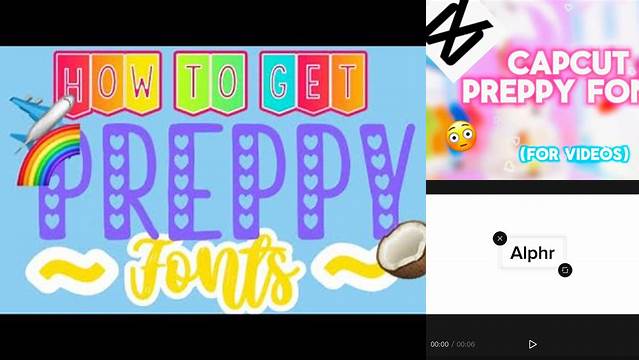
CapCut & Preppy Fonts: Your Ultimate Guide
Hey guys! Ever scrolled through TikTok or Instagram and been totally charmed by those super cute, effortlessly stylish videos? You know, the ones with the perfect fonts that just scream 'preppy' and 'aesthetic'? Well, if you're a CapCut user and you've been wondering how to get in on that font game, you're in the right place! This guide is all about how to get preppy fonts on CapCut, helping you level up your video editing and make your content pop. We'll dive into all the nitty-gritty details, from finding the right fonts to actually implementing them in your CapCut projects. So, grab your phone, open up CapCut, and let's get started on creating some seriously preppy videos!
H2: Understanding the Preppy Aesthetic and its Fonts
Alright, before we jump into the technical stuff, let's get on the same page about what exactly defines the preppy aesthetic. Think classic, clean, and a touch of sophistication. We're talking about a vibe that's often associated with things like collegiate style, timeless fashion, and a generally put-together look. And guess what? Fonts play a huge role in conveying that vibe! The right font can instantly elevate your video and make it feel more polished and professional. So, what kind of fonts are we looking for? Well, typically, preppy fonts lean towards elegant, readable typefaces. They often include sans-serif fonts that are clean and simple, fonts with a slight handwritten feel, or those that exude a sense of classic charm. Some popular examples include fonts like Montserrat, Bebas Neue, Playfair Display, or even some more stylized fonts that mimic handwriting, like a clean, modern script. The key is to find fonts that feel refined and approachable, not overly complicated or distracting. Remember, the goal is to complement your visuals and enhance the overall feel of your video, not to overwhelm it with a chaotic font. When you're choosing your fonts, consider the overall mood you're trying to create. Are you going for a preppy-chic look for a fashion haul? Or perhaps you're creating a fun and lighthearted video about your daily routine? The fonts you select should always align with the content and the message you want to communicate. This is all about creating a visual narrative that is consistent and appealing! Preppy fonts, in essence, are a visual shorthand for style and sophistication, helping your videos to resonate with an audience that appreciates a touch of elegance. Moreover, they help to create a cohesive brand identity that aligns with your personal style and aesthetic preferences.
H3: Identifying Preppy Font Characteristics
So, how do you actually identify a preppy font when you see one? Let's break down some key characteristics. Firstly, readability is key. Preppy fonts are generally easy to read, even at smaller sizes. Avoid fonts that are overly ornate or difficult to decipher. Secondly, consider the font's structure. Sans-serif fonts, with their clean lines, are often a great choice. They offer a modern, minimalist feel that complements the preppy aesthetic well. Script fonts, which imitate handwriting, can also work, but be mindful of their legibility. Choose scripts that are neat, not too fussy, and maintain a consistent flow. Look for fonts that communicate elegance. This could mean a font with a slightly condensed appearance or a font that has well-defined curves and serifs. Colors also play a part. Preppy fonts are frequently used with a palette of neutral tones. While black and white are staples, don't shy away from using pastels. Choosing the right font style is crucial, especially when dealing with the preppy aesthetic. Certain fonts that align well with the preppy aesthetic include sans-serif fonts, script fonts, and serif fonts. Understanding these key features will enable you to confidently distinguish preppy fonts from other font styles. It will help you select fonts that will effectively enhance your content.
H2: Finding Preppy Fonts Outside of CapCut